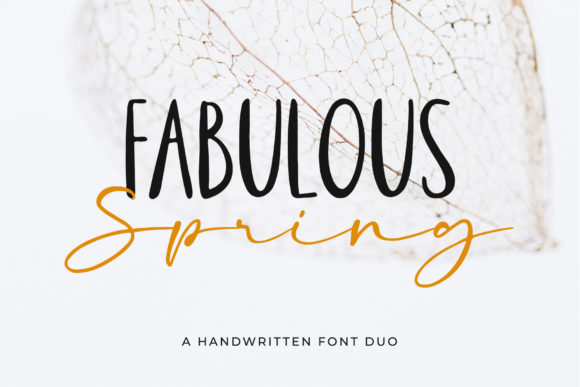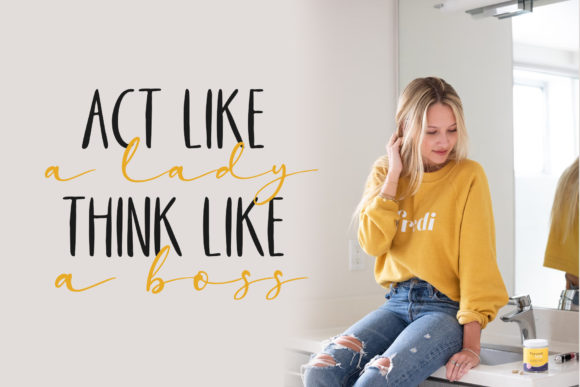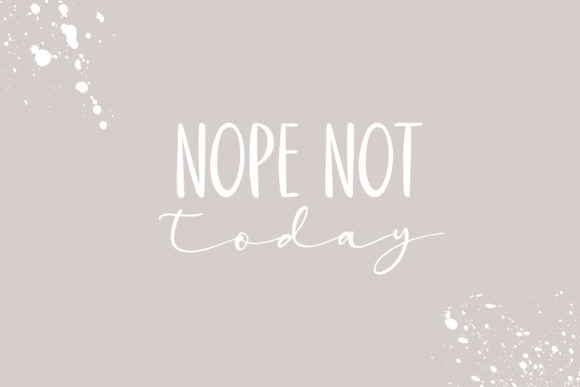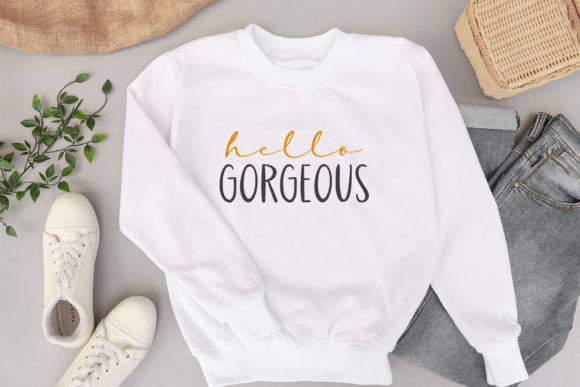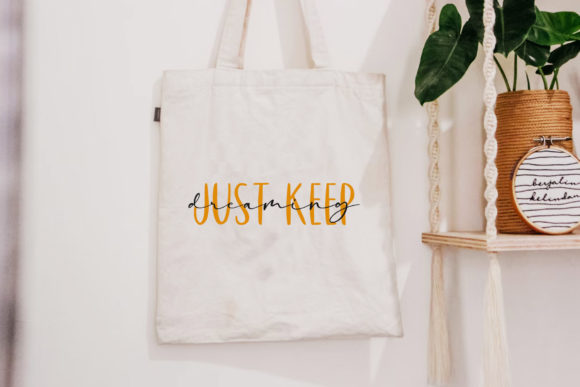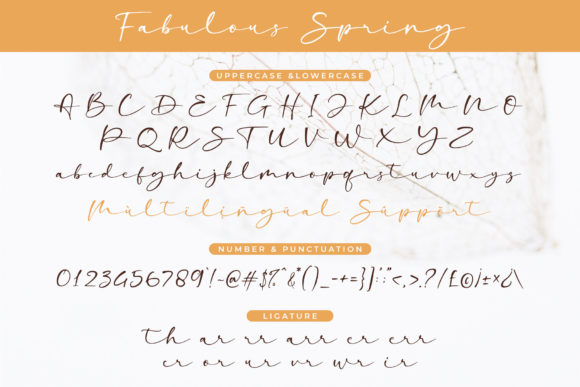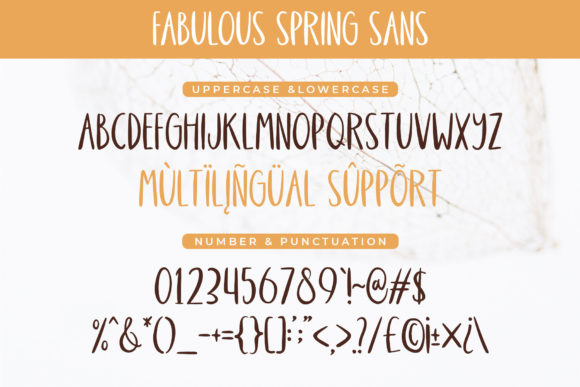
Fabulous Spring Font
Introducing Fabulous Spring, a unique font duo that’s designed to complement each other perfectly. This pair of fonts brings a chic and cheery touch to your crafts, making them more appealing and engaging.
Fabulous Spring is not just a font, it’s a design tool that can elevate your crafts. Whether used together or apart, these fonts can add a unique touch to your designs. They’re perfect for adding a chic touch to your crafts, making them stand out and catch the eye.
One of the best features of Fabulous Spring is its PUA encoding. This means you can access all glyphs and swashes with ease, giving you the flexibility to customize your designs to suit your needs. Whether you’re designing a logo, crafting a social media post, or creating a poster, Fabulous Spring can help you achieve your design goals.
But the versatility of Fabulous Spring doesn’t stop there. It’s a great choice for any design that needs a chic and cheery touch. Whether it’s a poster, a brochure, a website, or a social media post, Fabulous Spring can make your designs more appealing and engaging.
In conclusion, Fabulous Spring is more than just a font duo. It’s a design asset that can elevate your work and make it stunning. Whether you’re designing a logo, crafting a social media post, or creating a movie title, Fabulous Spring can help you achieve your design goals. So why wait? Start creating stunning work with Fabulous Spring today!